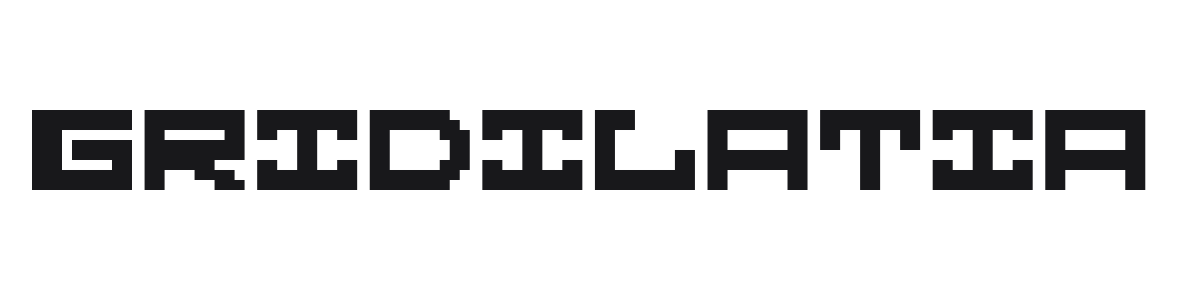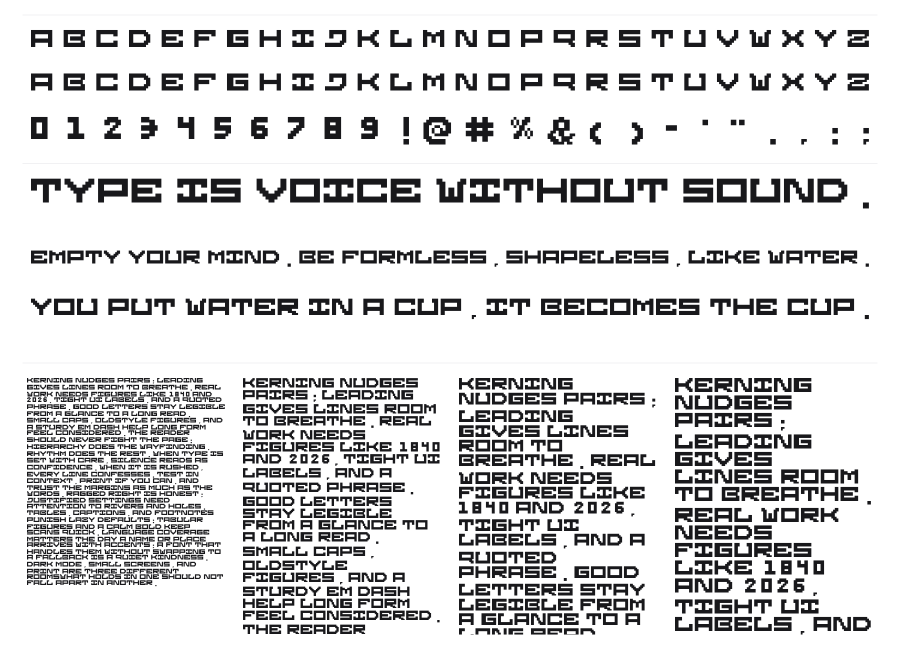
Gridilatia
Gridilatia is a chunky pixel-grid bitmap font built entirely from square block units in the tradition of 8-bit arcade displays. Every character is constructed on a rigid horizontal-vertical grid with no curves, giving it a hard-edged, retro-digital look. It works well for gaming titles, tech branding, and any project that needs a bold nod to early digital culture.